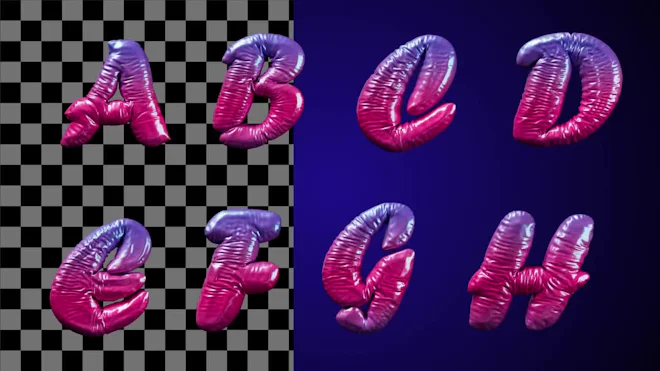
This stock motion graphics video pack includes 36 different clips of inflated colorful typefaces on a transparent alpha channel. Resolution is 1000x1000.